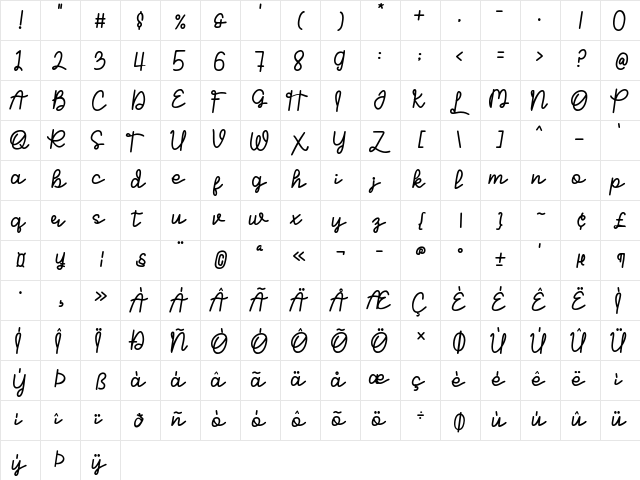
Sinttesy Demo Regular
| Designer | Sabr Creative Studio |
Design Context for Sinttesy Demo Typeface
Sinttesy Demo is a composed and adaptable typeface that performs quietly and consistently across a wide range of design contexts.